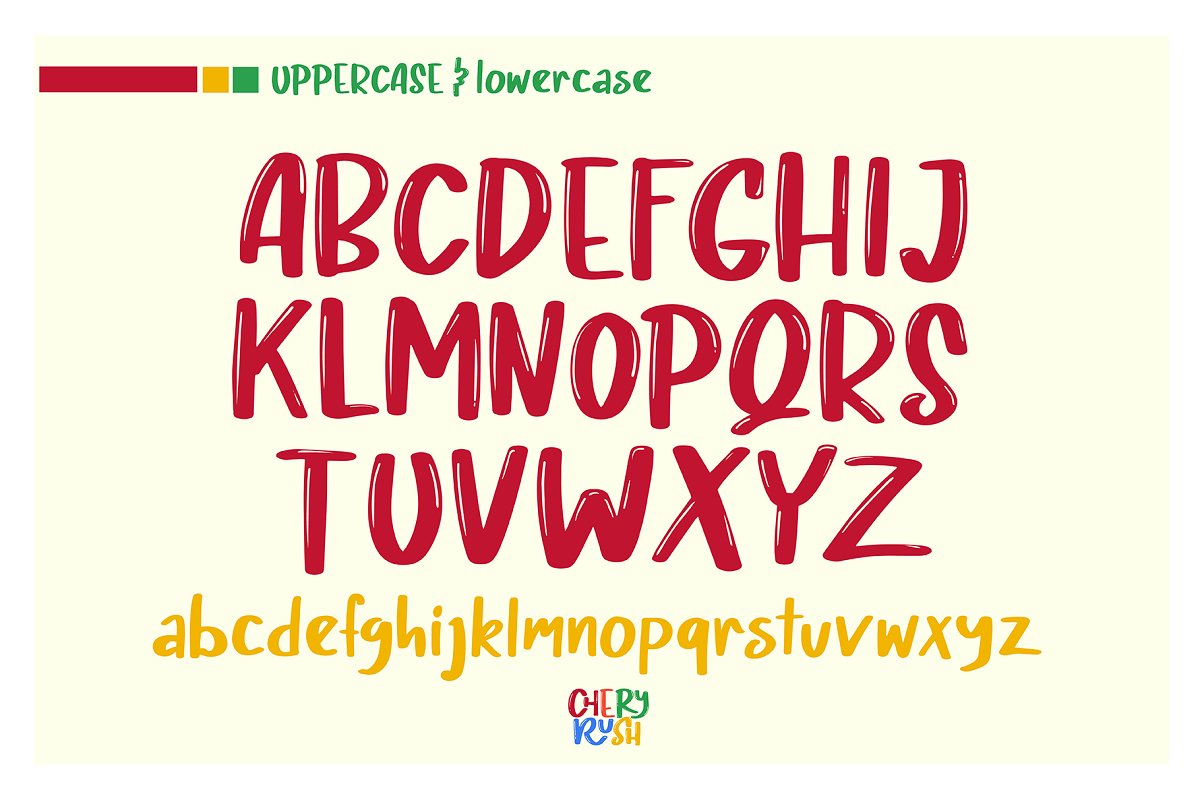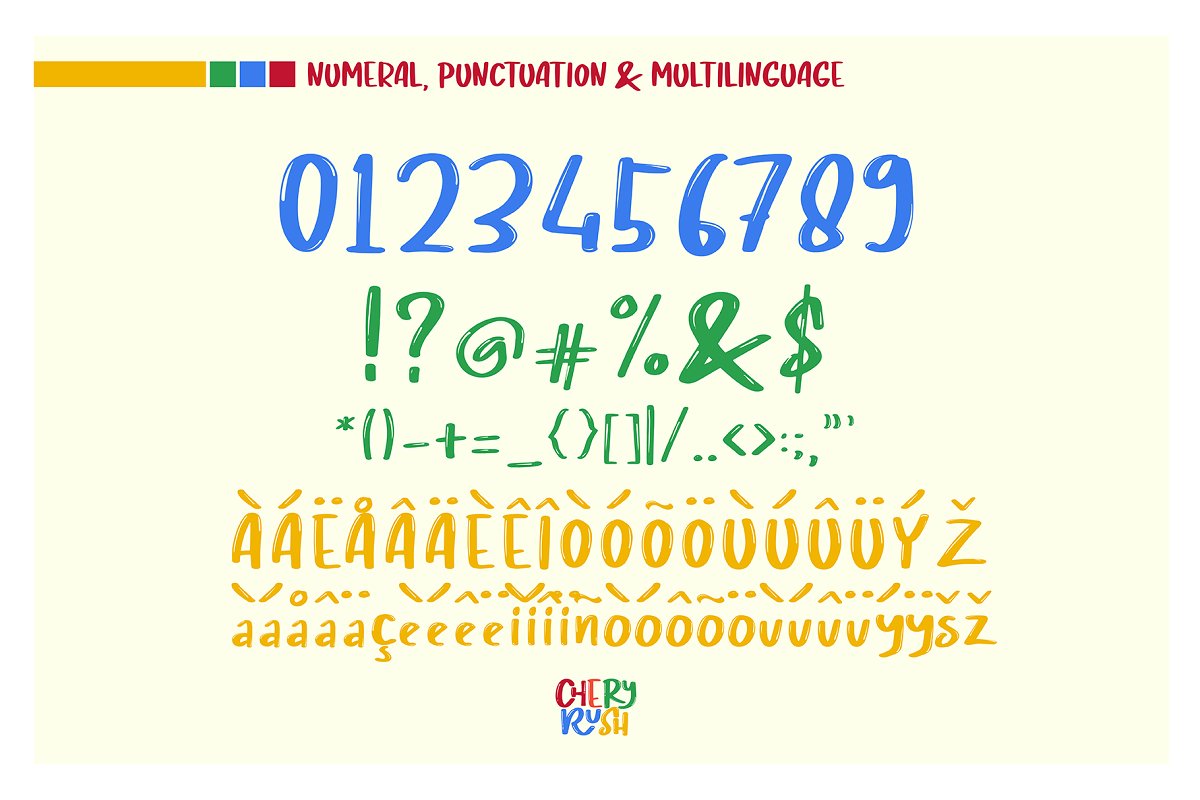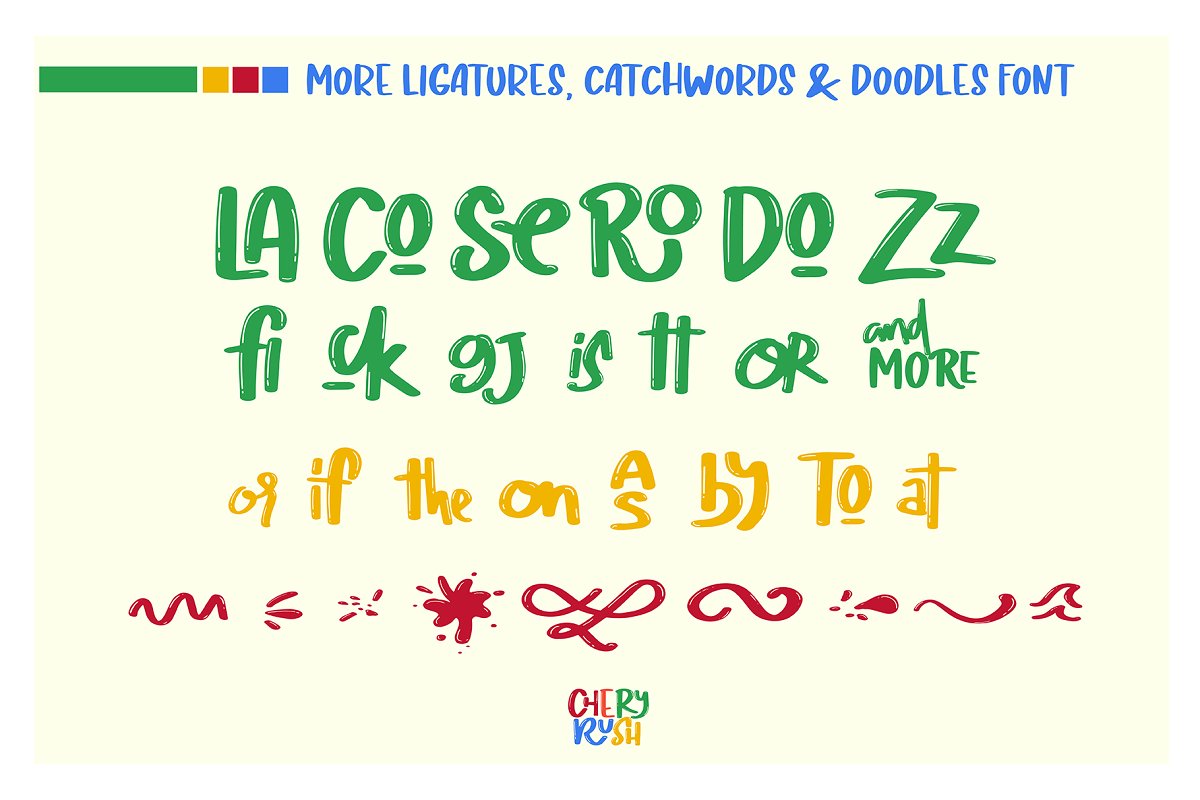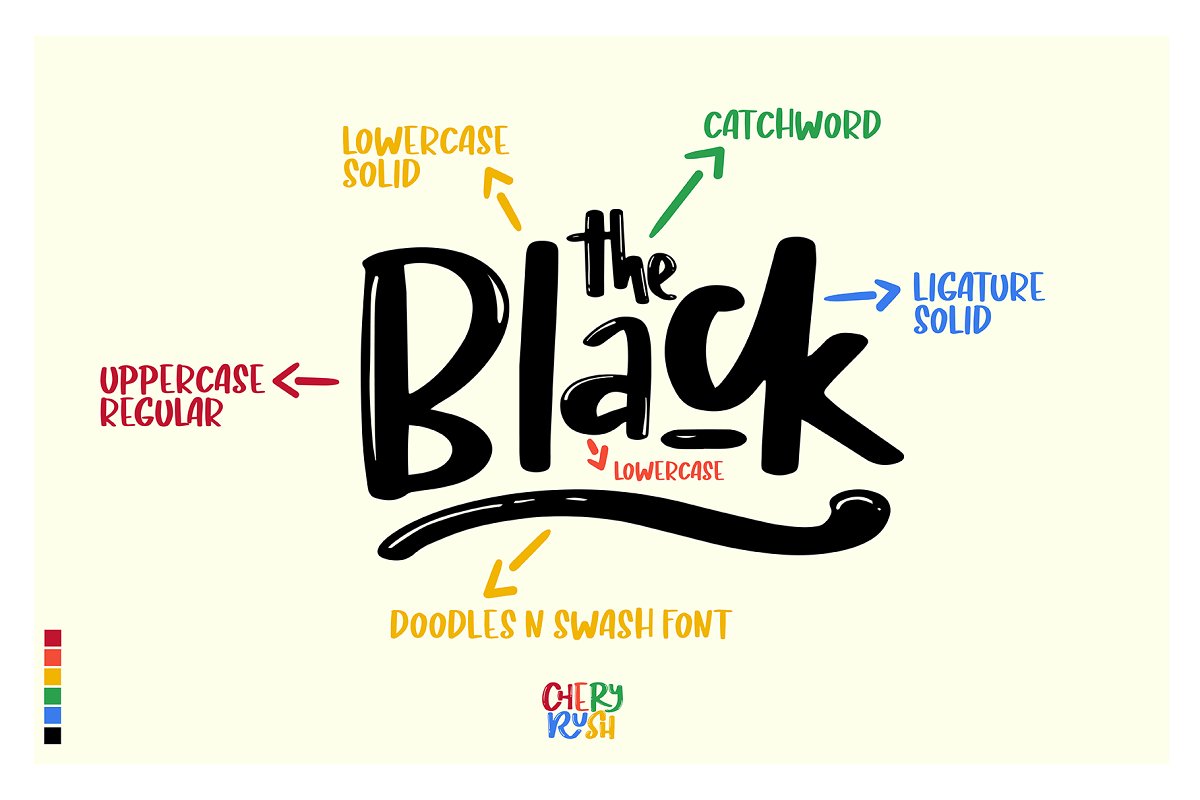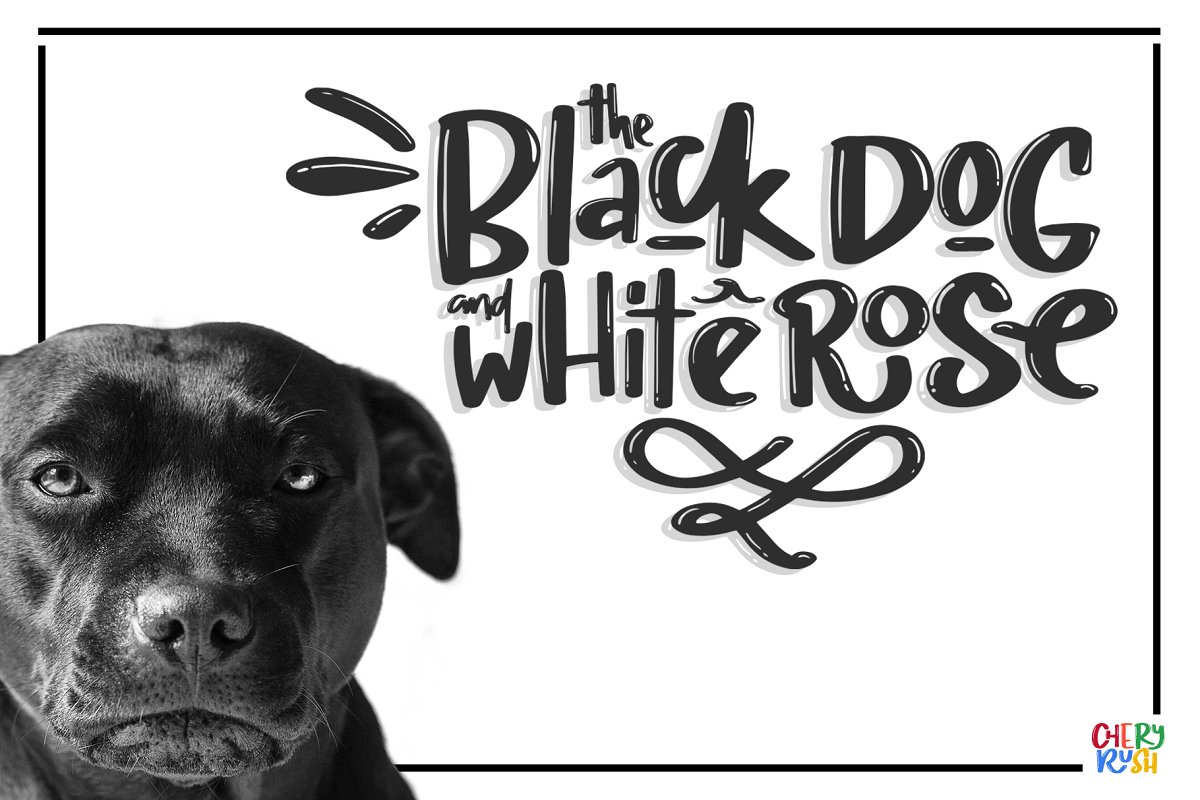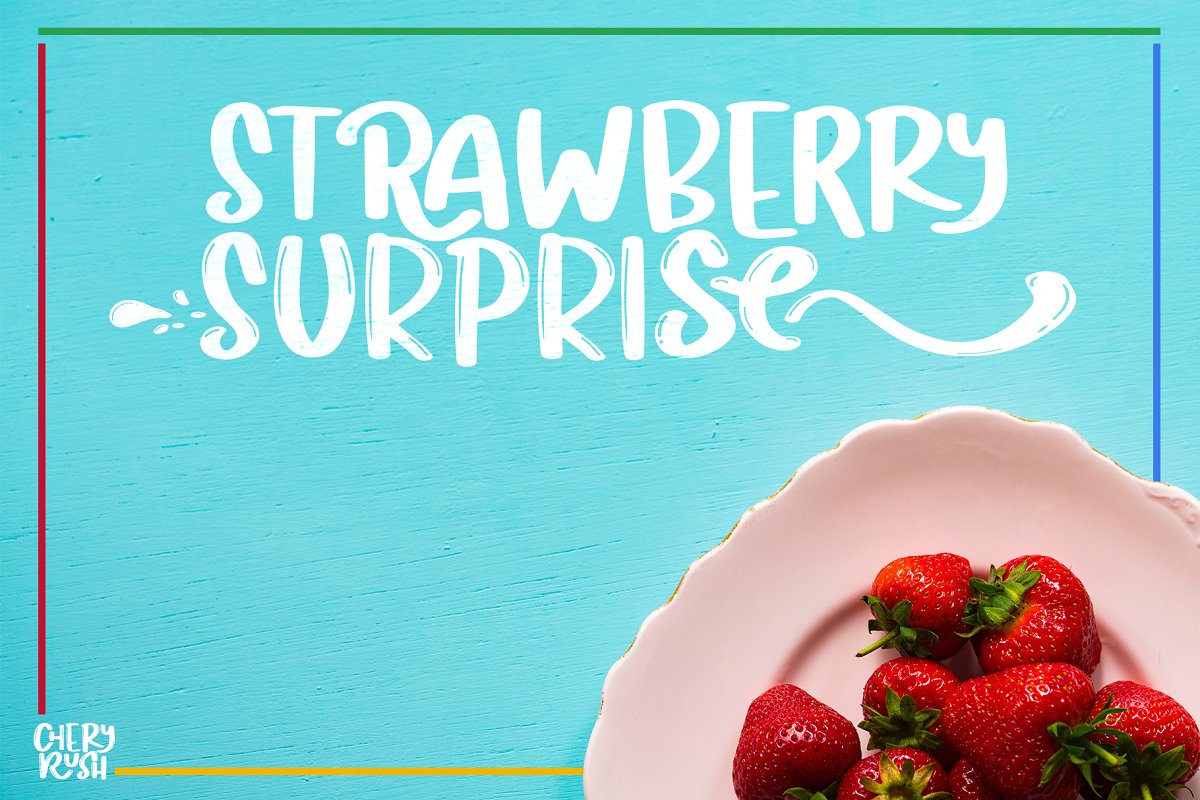
About the CHERY RUSH fun display Font
SPRING SALE 25% OFF (normal price $19 now $15)CHERY RUSH It’s fun, it’s cute, it’s smooth, and it’s mighty splash, A mixed-case font (Uppercase and lowercase) with lots of combination possibilities, make greats fun display!its good to make a logotype, sticker, fun kids sign, and other lettering project, This fun is perfect combination uppercase and lowercase
This font contains all uppercase, lowercase, numbers and basic punctuation also a fun 40 ligatures, (If you’re having trouble finding the basic punctuation, you can access it in the Glyphs panel)Chery Rush features:Both OTF and TTF file formats (Regular, Solid, Swash doodles)UPPERCASE and lowercase40 Ligatures (more fun with lots of combination possibilities)Panctuation and numeralextended Latin characters for language support